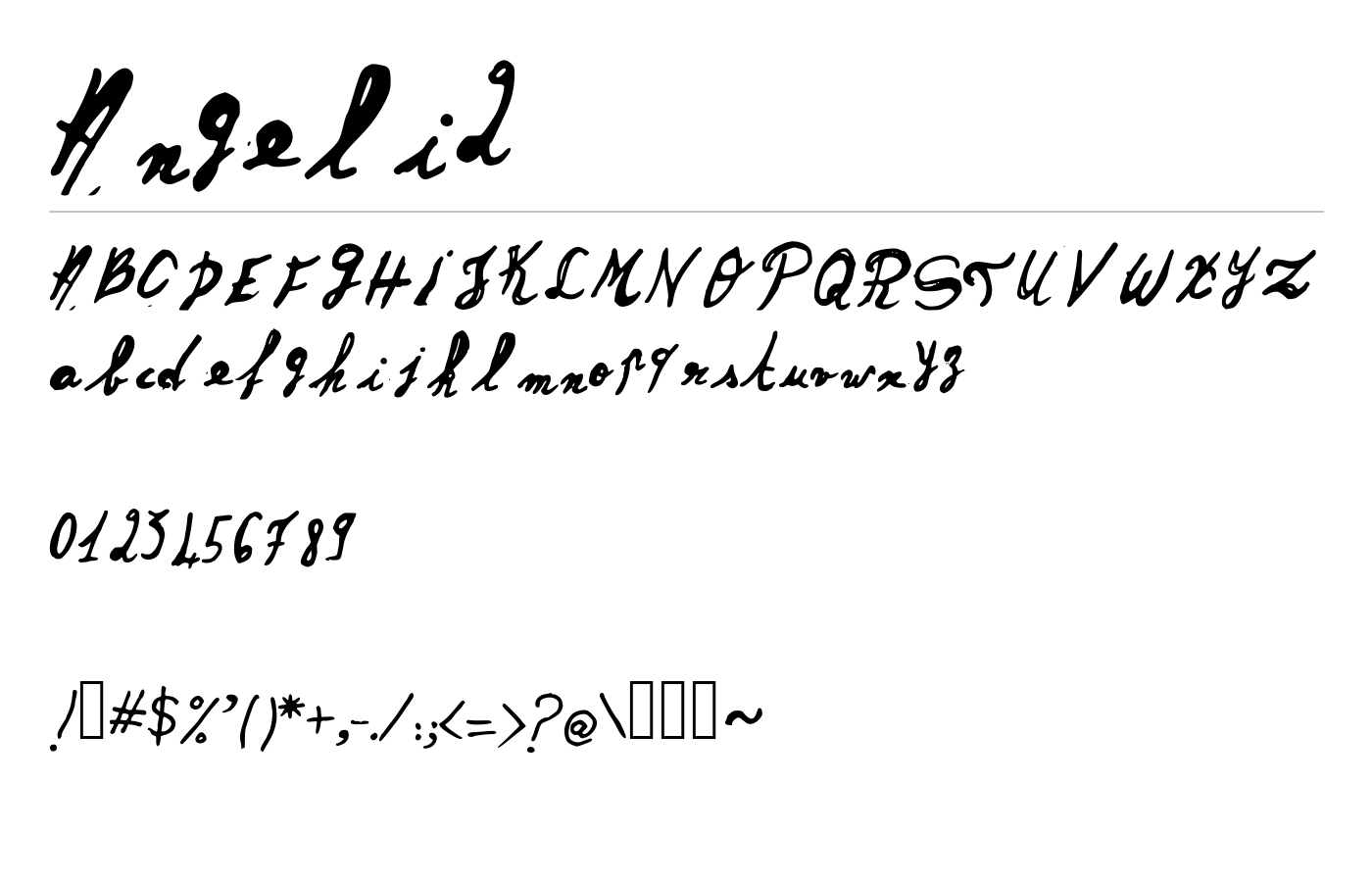
Angeli2 is a distinctive script font that captures the fluidity and elegance of natural handwriting with a unique, slightly whimsical twist. Its varied stroke thickness and irregular letterforms give it a playful yet personal feel, making it ideal for creative branding, invitations, and artistic projects that seek an expressive and human touch. This font works best in designs where a hand-crafted, individualistic vibe is desired, adding warmth and character to headlines, logos, and decorative text.
Angeli2 Font
About Angeli2 Font